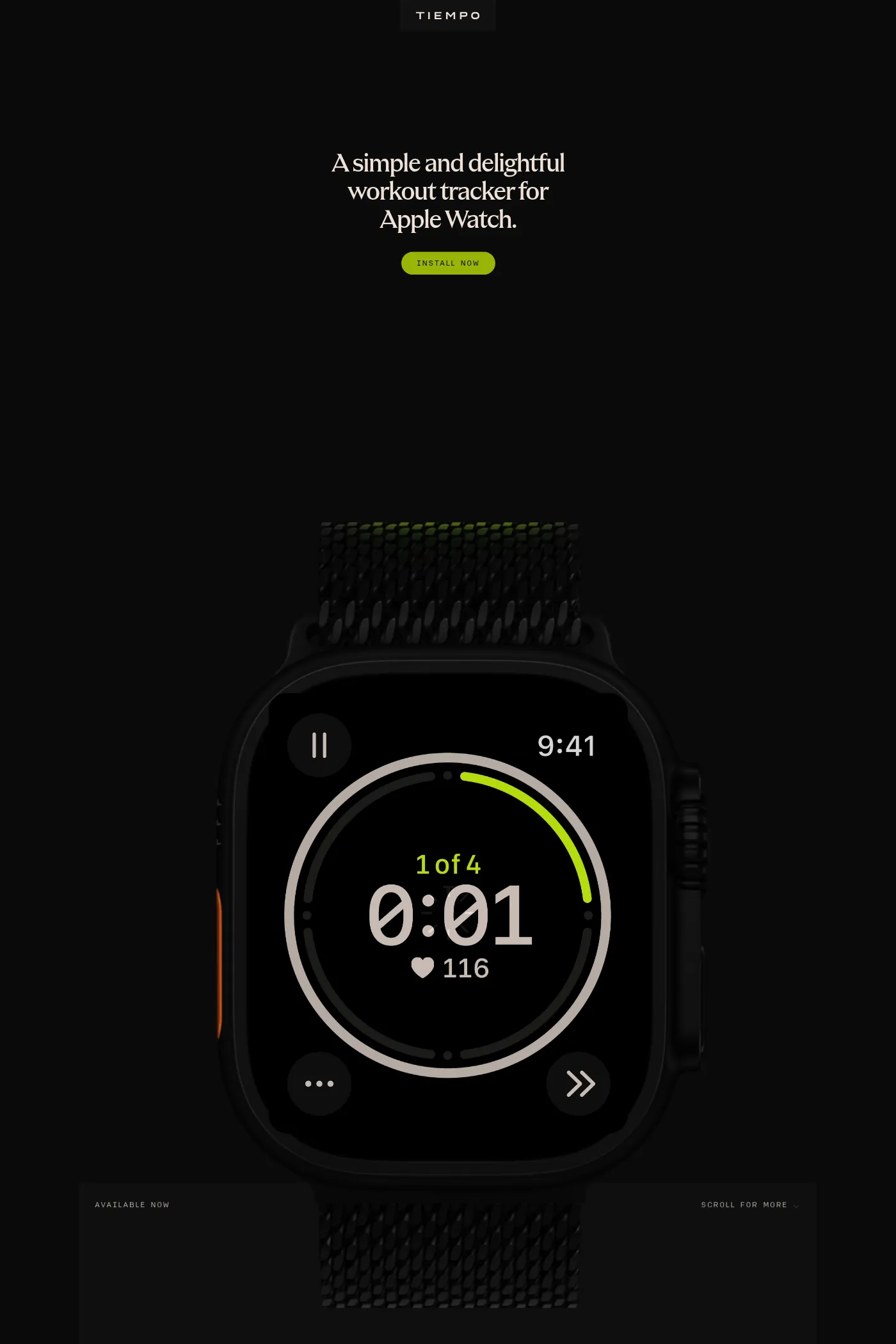
Apris is a serif typeface from Schick Toikka.
Around the 1850s, a new typeface genre emerged, marked by pointed serifs and capitals of harmonized widths. It quickly evolved into an international phenomenon, with variants known by largely random names such as Latines in France, Renaissance- or Etienne-Schriften in Germany, Latin and Runic in England, as well as Celtic in the United States.